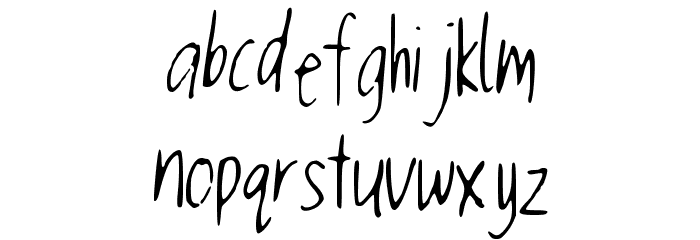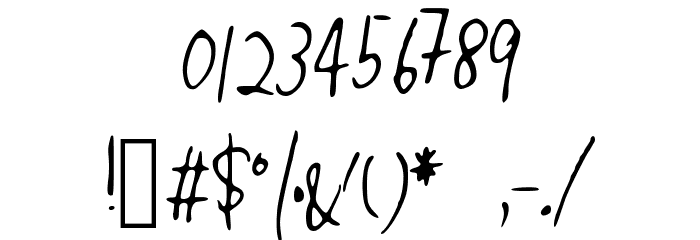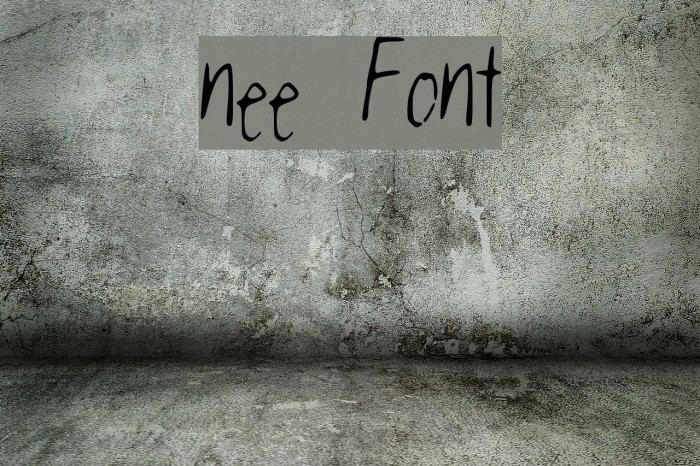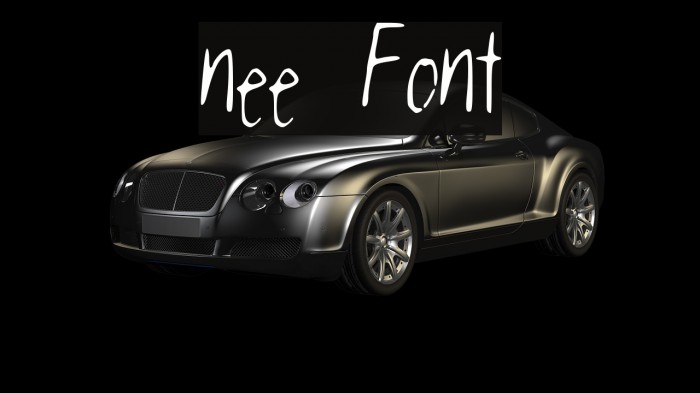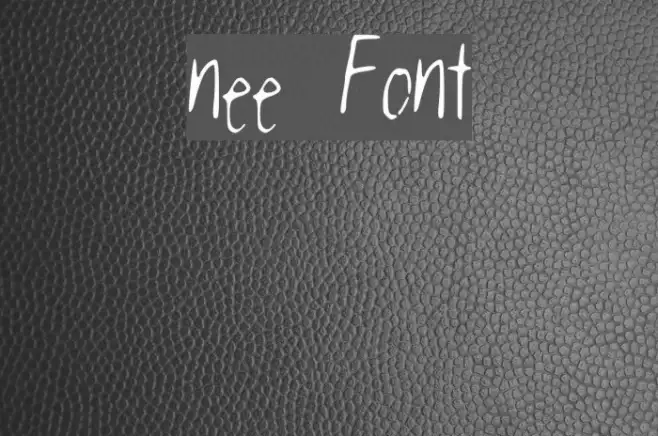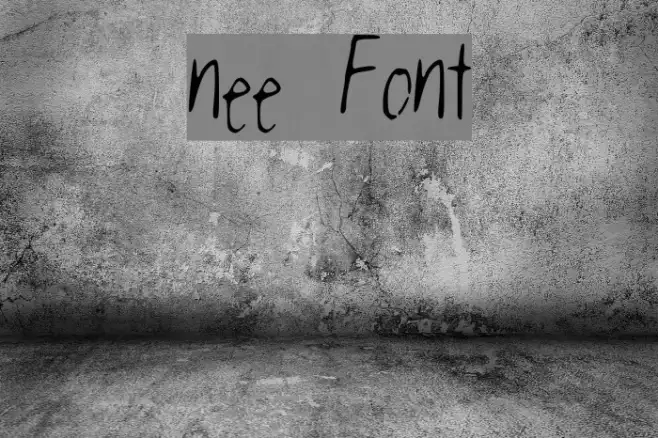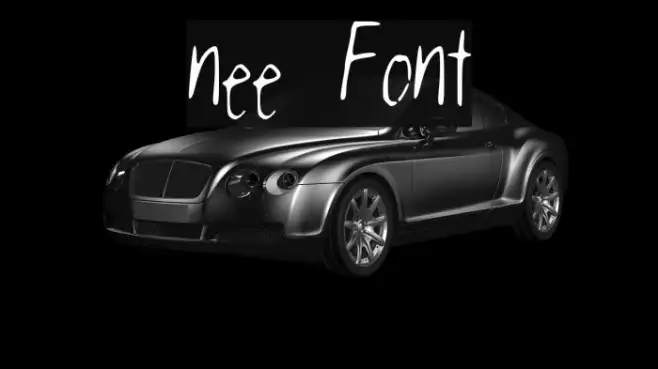
nee Font
This font features a casual, handwritten style with a playful and informal appearance. The letters are slightly slanted, giving a dynamic and lively feel. The strokes vary in thickness, adding a natural and organic touch to the characters. The uppercase letters are bold and prominent, while the lowercase letters maintain a consistent flow. Numbers and special characters are designed to match the overall style, ensuring a cohesive look across all text elements. The font's unique character makes it suitable for projects that require a personal and approachable tone.
A casual, handwritten font with a playful and dynamic style.
- Font: nee
- Weight: Medium
- Proposed Projects: Ideal for greeting cards, invitations, personal branding, and social media graphics.
- Category: Handwritten
- Overall Style: Casual, Playful
- Use Case: Headlines, Informal text, Creative projects